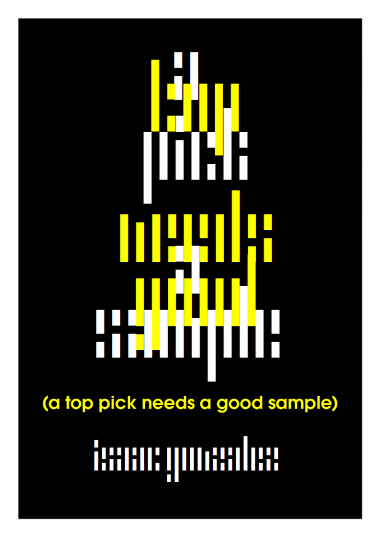
sample
Love the concept applied to your sample image!
thanks. I'm going to make an italic version too.
More readable than you'd first think. 10/10
Congratulations! FontStruct Staff have deemed your FontStruction worthy of special mention. “Artificial Stencil” is now a Top Pick.
another sample
Ahhh… well done, very funny… X/
Now I can't help seeing hidden warning messages on my wafers, hair clippers, soles, hands, any bark, everywhere ! I can read them… they are there ! Believe me, they are t h e r e !
cool
Good font! 10/10
Great work! You realy are able to use the bricks! Excelent!